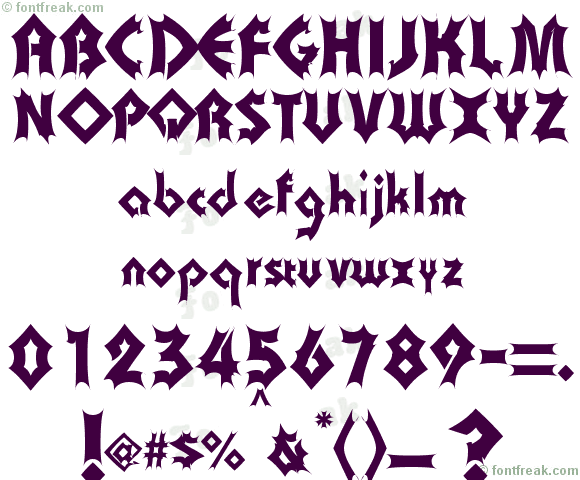
Transylvania
The Transylvania font, created by Jason Vance in 1993, is a striking display typeface that embodies a gothic aesthetic, making it an excellent choice for projects that require a touch of drama and intrigue. As a freeware font, it is accessible for both personal and commercial use, allowing creative freedom without the burden of licensing fees. The font features sharp, angular strokes with a pronounced contrast between thick and thin elements, creating an eye-catching visual impact. Its unique letterforms are characterized by decorative flourishes and pointed accents that evoke a sense of mystery and fantasy.
Transylvania is particularly well-suited for a range of creative applications. It shines in movie posters, especially those within the horror or fantasy genres, where its gothic style can amplify the overall theme. Additionally, it works wonderfully for Halloween-themed graphics, adding an eerie flair to decorations and promotional materials. Wedding invitations can also benefit from this font, especially for couples looking to incorporate a whimsical or fairy-tale element into their event. Small business owners in the entertainment or themed restaurant sectors will find it invaluable for branding, signage, and menus that aim to create a memorable dining experience.
Targeting graphic designers, content creators, and small business owners, the Transylvania font invites creativity and originality. Its distinctive style makes it a standout choice in a sea of conventional typefaces. The combination of its dramatic visual characteristics and versatility in use cases makes it a compelling option for anyone looking to leave a lasting impression. For those interested in incorporating this unique typeface into their projects, the Transylvania font free download offers an opportunity to elevate their designs with flair and character.